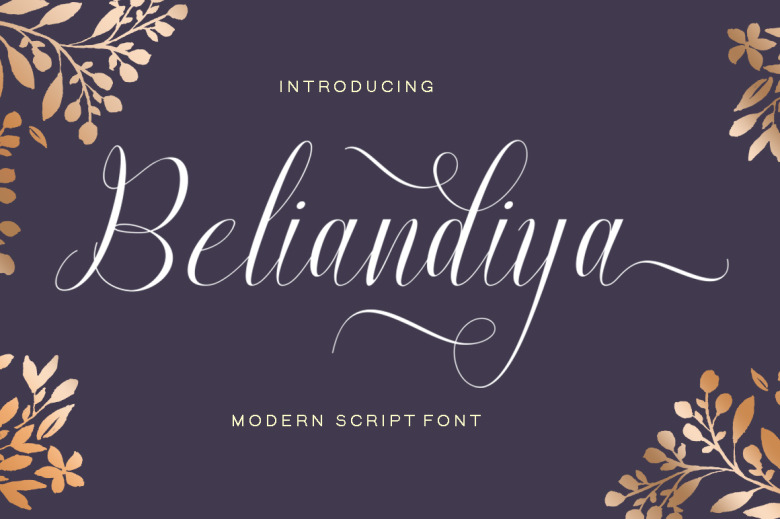
Beliandiya Font
Beliandiya is a new modern script calligraphy font, featuring a distinct, bouncy style with irregular baseline. It is a trendy, feminine style with dalam and natural connections between the characters that makes it free-flowing and adaptable to any creative project you can think of. Beliandiya Script is perfect to use for wedding invitations if you need an elegant yet stylish typeface, or for thank you cards, quotes, greeting cards, logos, business cards, and much more. You can use this font with ink or watercolor-based work.
Equipped with an initial and terminal choice for the lowercase letter, and initial, median, and end swashes for general letters, as well as ligatures, comprising of double letters, there are over 125 variants of galore. The updates include the incorporation of letters and numerals in other languages.
Beliandiya Calligraphy Script Font